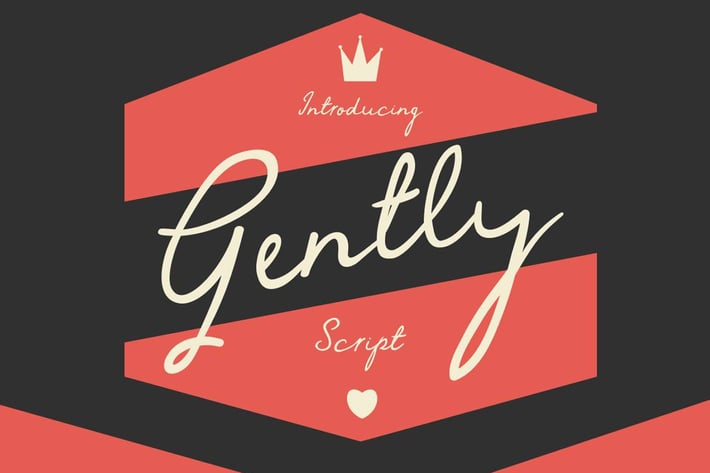
Gently Script font
Gently Script was named after a poem by Dylan Thomas Called "Do not go gentle into that good night"
Gently script has an informal appearance with only a tiny smidgen of decoration, this keeps it simple and easy to read.
Script Ligatures and alternatives
The typeface aims to give the feeling of handwriting. It has numerous ligatures and alternatives to make it more realistic.
The font has Latin character set and supports
Western European
Central European
South Eastern European
Characters. In total, it has over 500 glyphs.